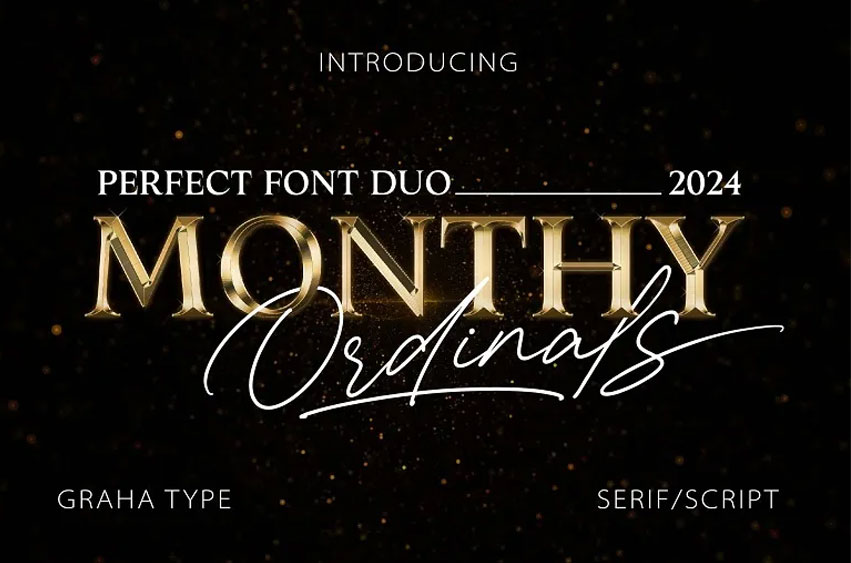
Monthy Ordinals Font
Monthy Ordinals Font is a splendid script and serif fonts duo that can be used for any project. It is best to be used in posters, magazines, logos, merchandise, social media platforms, and branding.
It can improve visual communicative features and corporate styles and identities in various design situations.